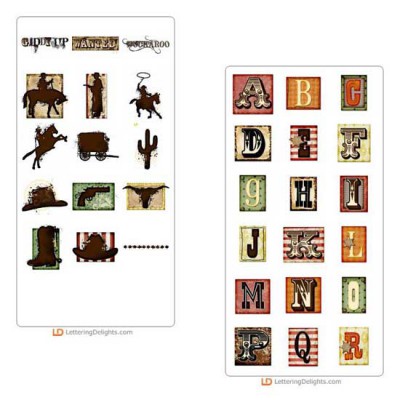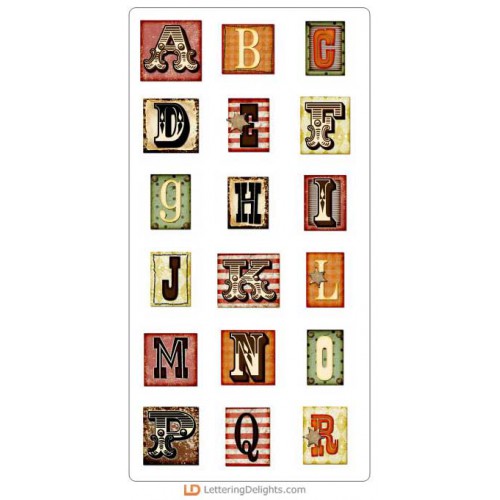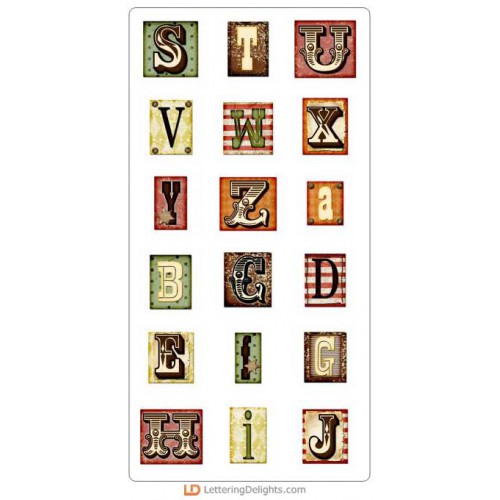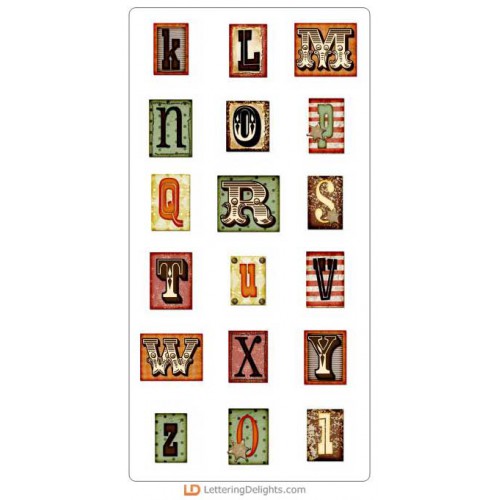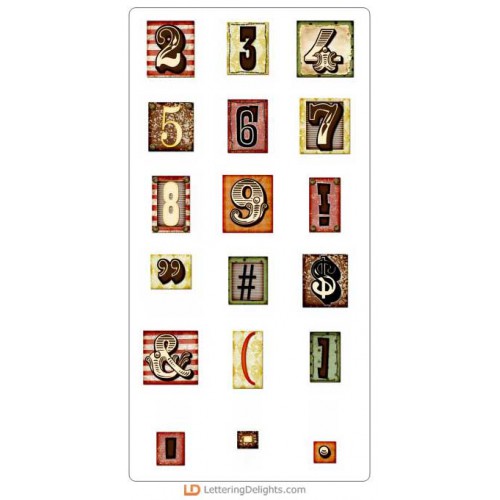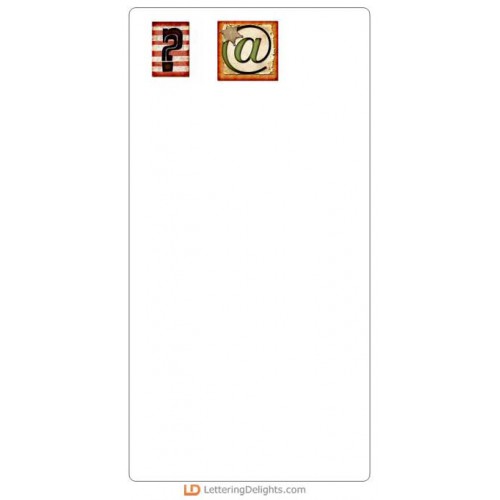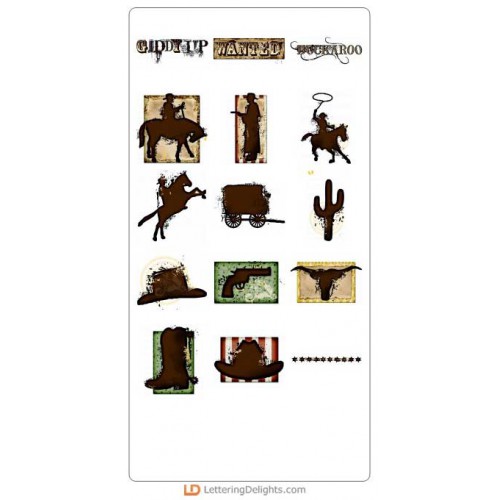
Buckaroo Bundle
Buckaroo is themed after the wild wild west, and those crazy cowboys. Rope in this darling graphic set and alphabet and one amazing price!